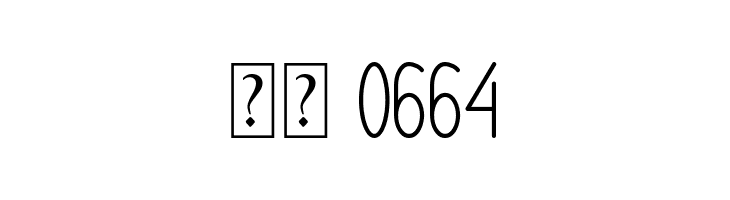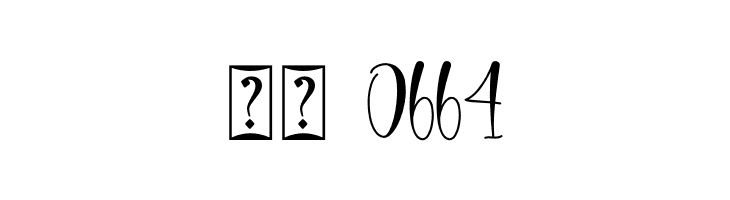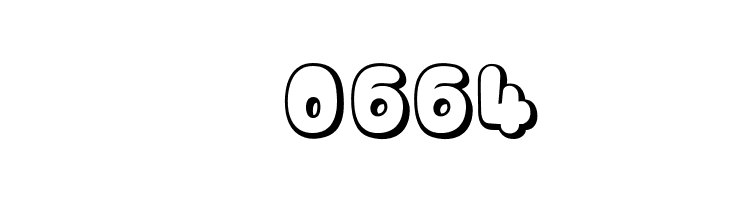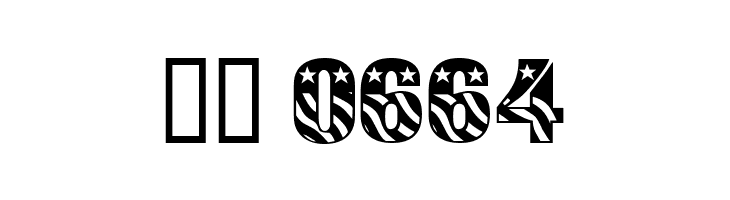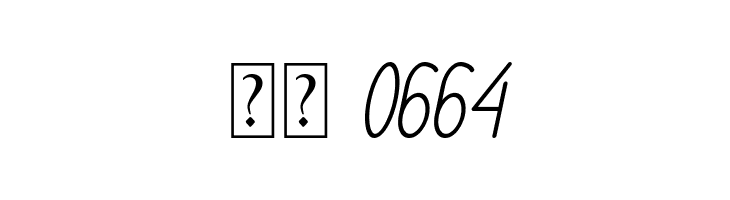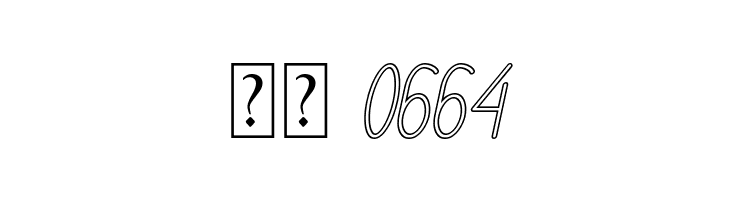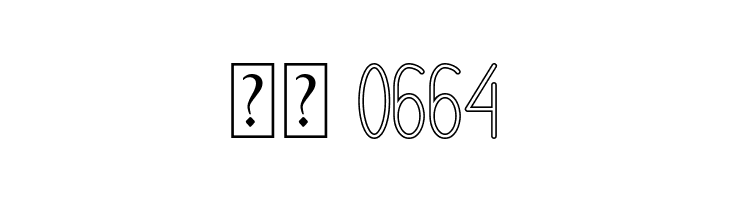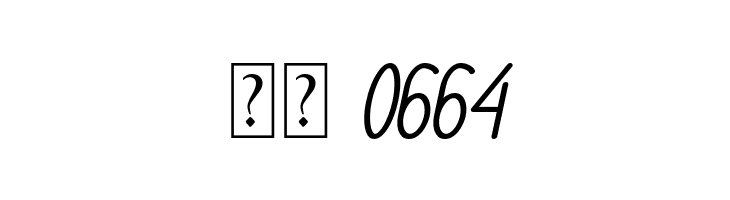
A bold, playful script font with a whimsical, hand-drawn style.
A bold, expressive script font with a modern, handwritten style.
A bold, flowing script font with elegant curves and high contrast.
A bold, playful font with thick, rounded letterforms and strong geometric shapes.
A bold, playful font with thick, rounded characters ideal for eye-catching displays.
A geometric, minimalist font with thin, hairline strokes and a modern aesthetic.
A bold, inline font with a geometric and decorative style.
A modern, geometric inline font with clean lines and sharp angles.
A bold, playful font with rounded, geometric characters.
A bold, geometric font with rounded edges and a modern, playful style.
A geometric, rotated inline font with a playful and modern design.
A bold, geometric font with a rotated outline effect and modern style.
A bold, geometric font with rotated characters for a modern, playful look.
A bold, geometric font with a three-dimensional, shadowed effect.
A bold, shadowed font with a three-dimensional, playful style.
A bold, outlined font with a modern and playful style.
A bold, geometric font with a modern and playful style.
A bold, three-dimensional font with a shadow effect, ideal for impactful designs.
A bold, distressed font with a rugged, chaotic texture.
A bold, 3D font with a shadow effect and modern aesthetic.
A bold, outlined decorative font with high contrast and a modern, dynamic style.
A playful, handwritten font with smooth, rounded strokes and an informal style.
A playful, bold font with irregular patterns and a hand-drawn style.
A bold blackletter font with sharp, angular lines and a medieval aesthetic.
A playful, handwritten-style font with bold, rounded strokes and a dynamic slant.
A bold, playful handwritten font with a casual and energetic style.
A playful, rounded font with a bold, whimsical style.
Playful, decorative handwritten script with tall, narrow forms and swashes.
A bold, playful script font with a festive, dynamic style.
A playful and whimsical font with eye-like details and smooth, flowing lines.
A playful and elegant script font with flowing, cursive letters.
A cursive, handwritten font with elegant, flowing italic characters.
A playful, bubble-like font with thick outlines and a cartoonish style.